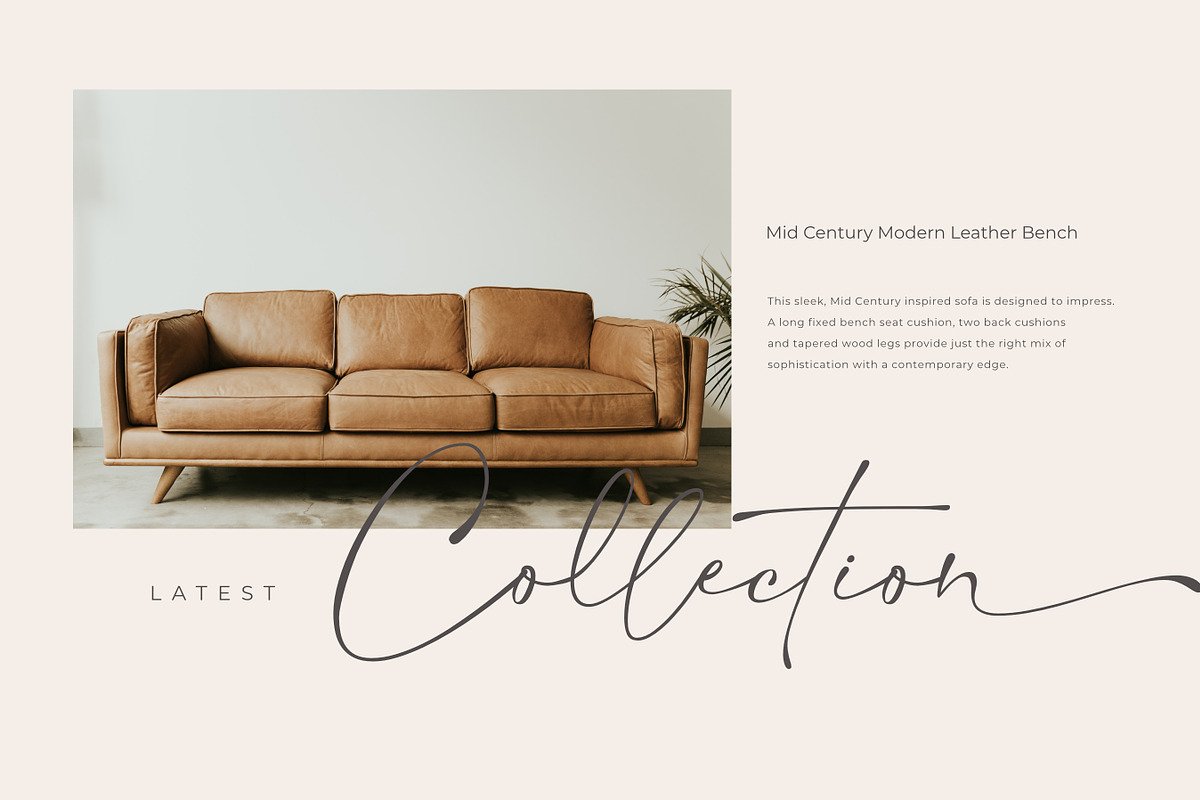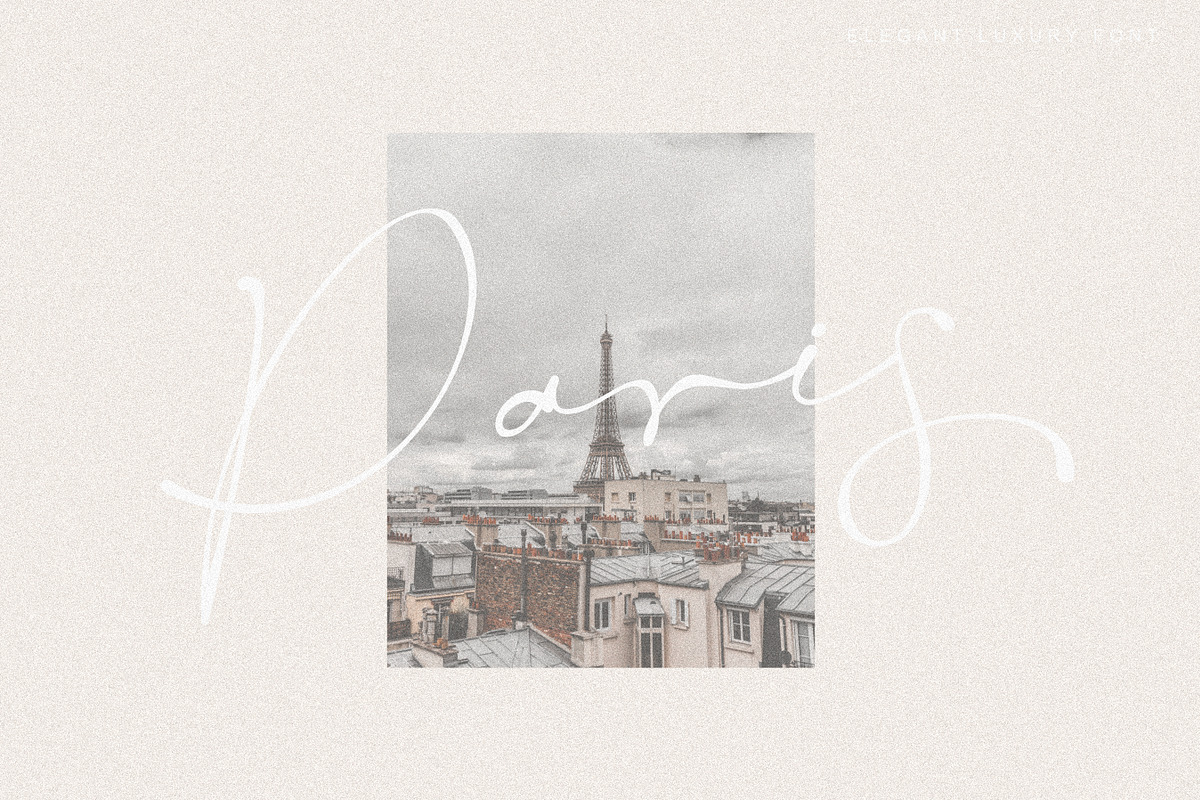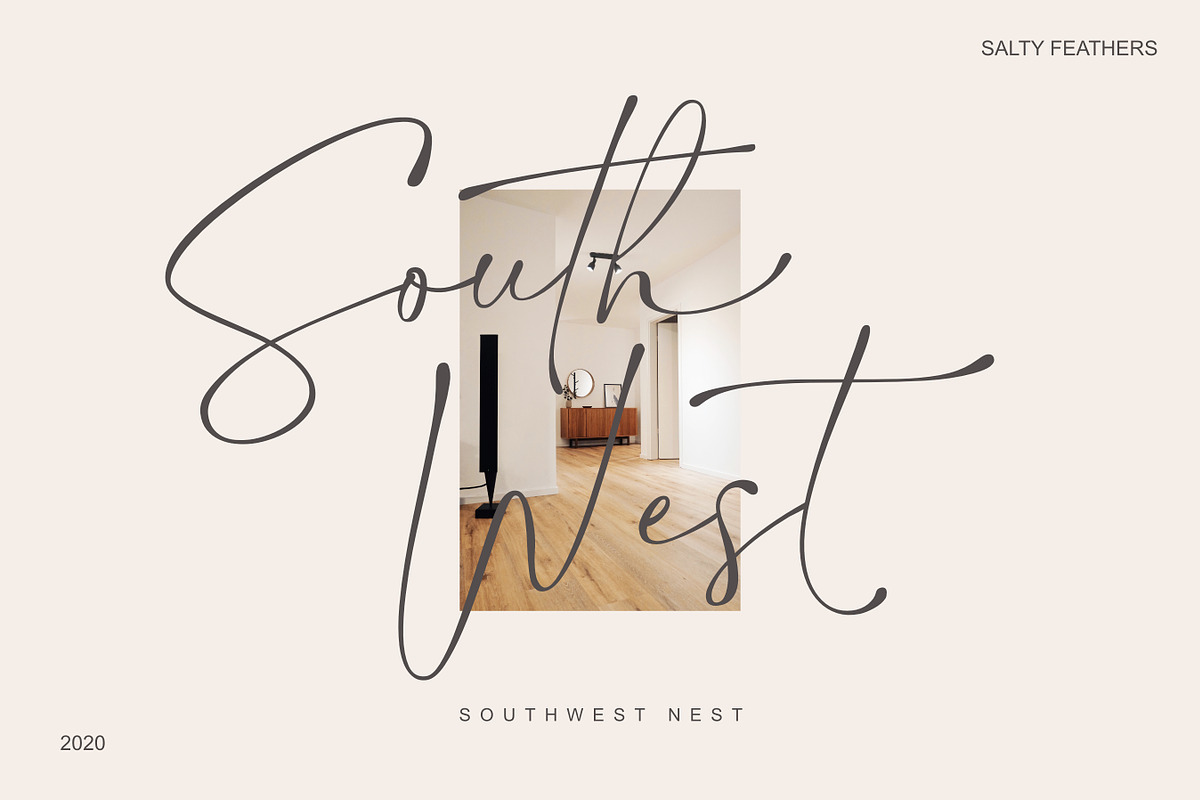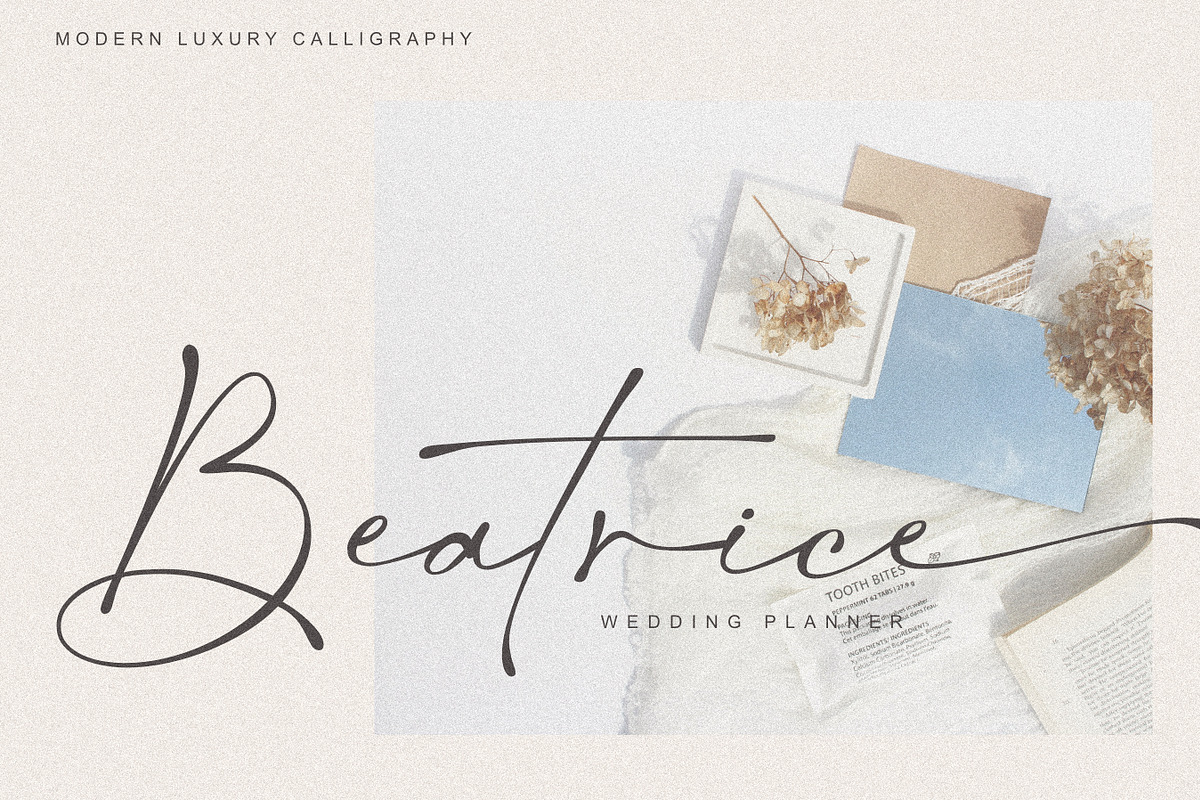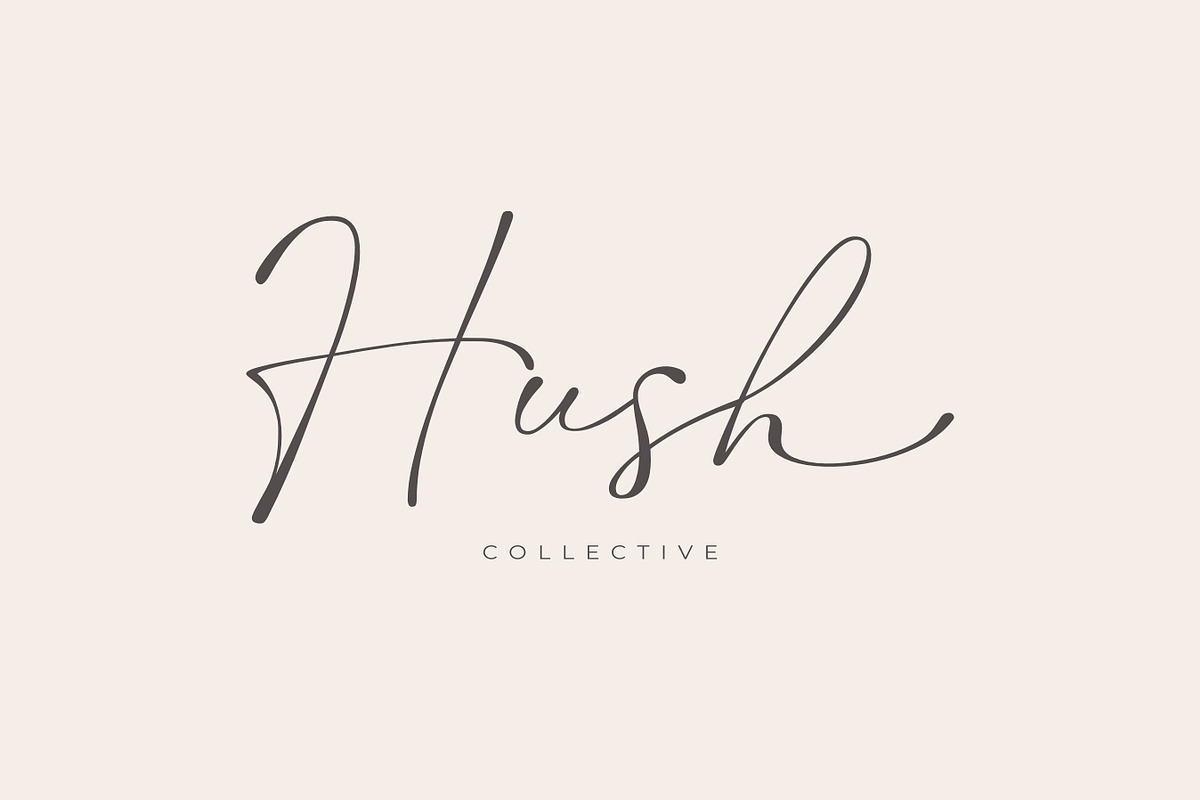
Salty Feathers – Elegant Luxury Font by Sans & Sons. Salty Feathers includes full set of uppercase and lowercase letters, multilingual symbols, numerals, punctuation, alternates, swash and ligatures. The font has organic smooth wet ink texture with Modern Elegant Style this is perfect for branding, logos, invitation, masterheads and more.
- Multilanguage
- Ligatures
- Alternates
- Swash